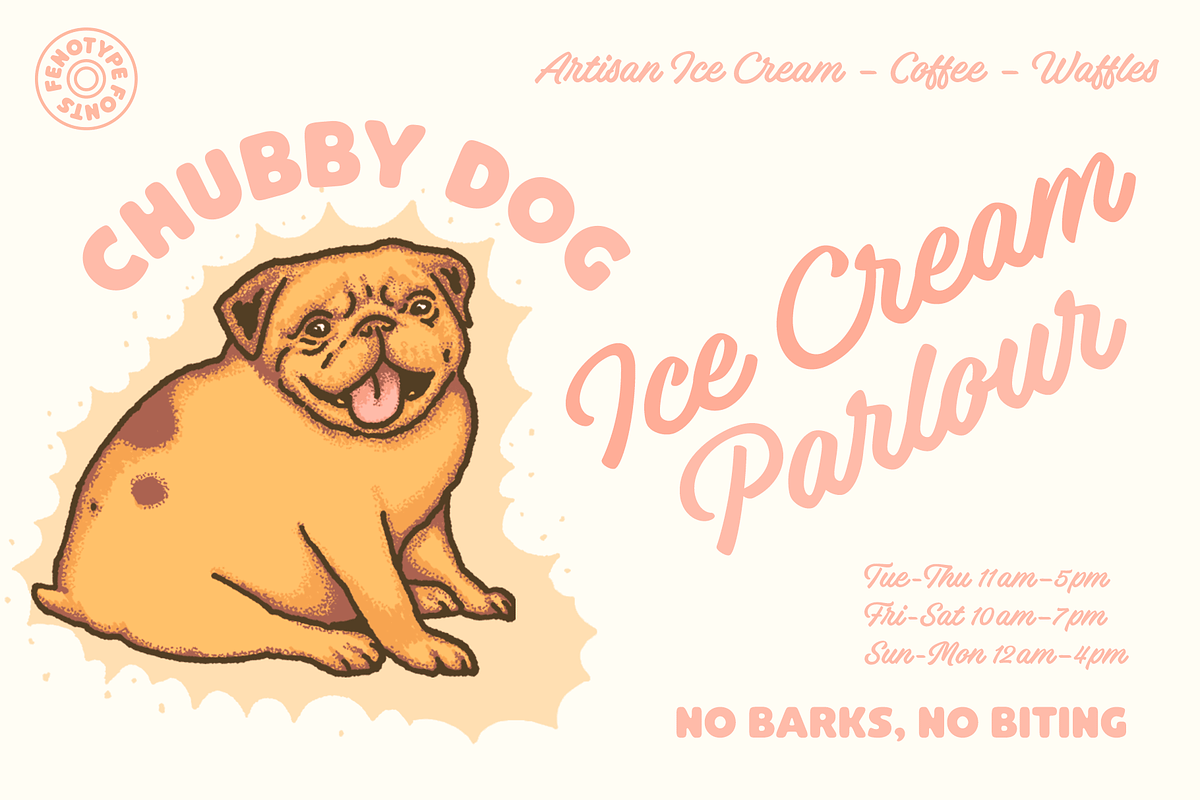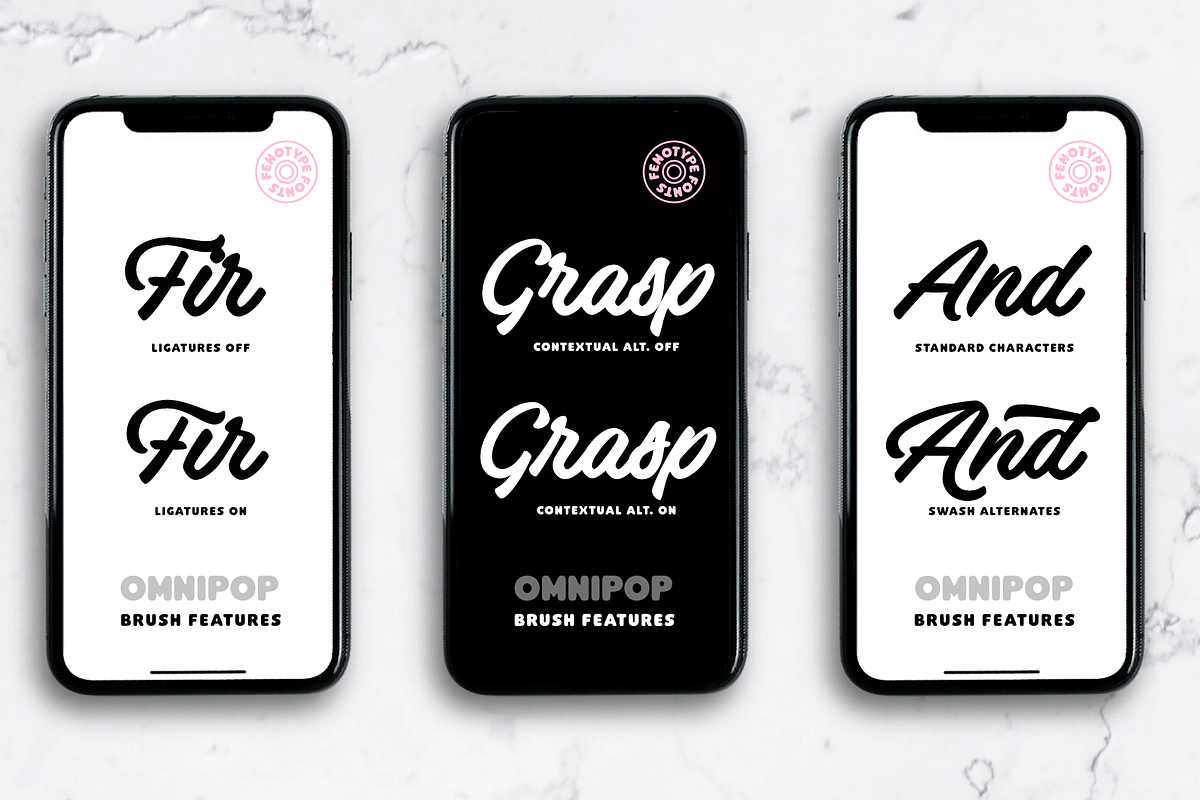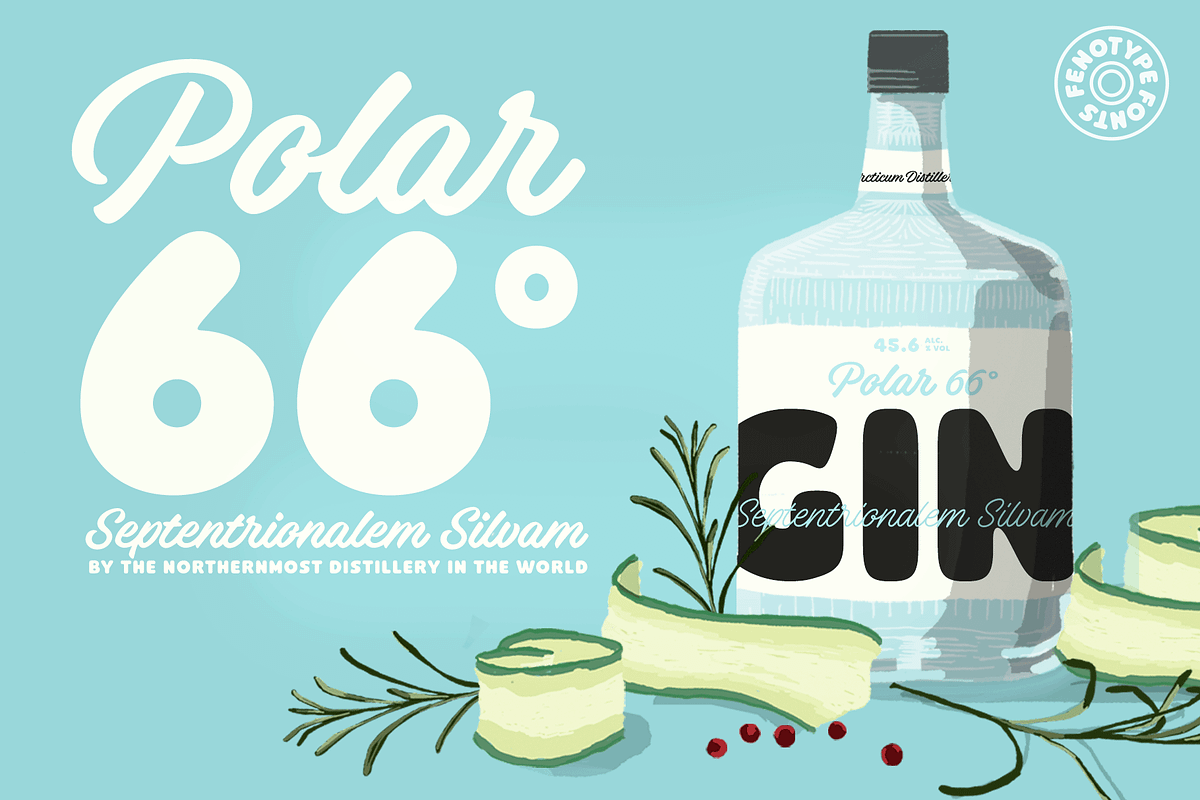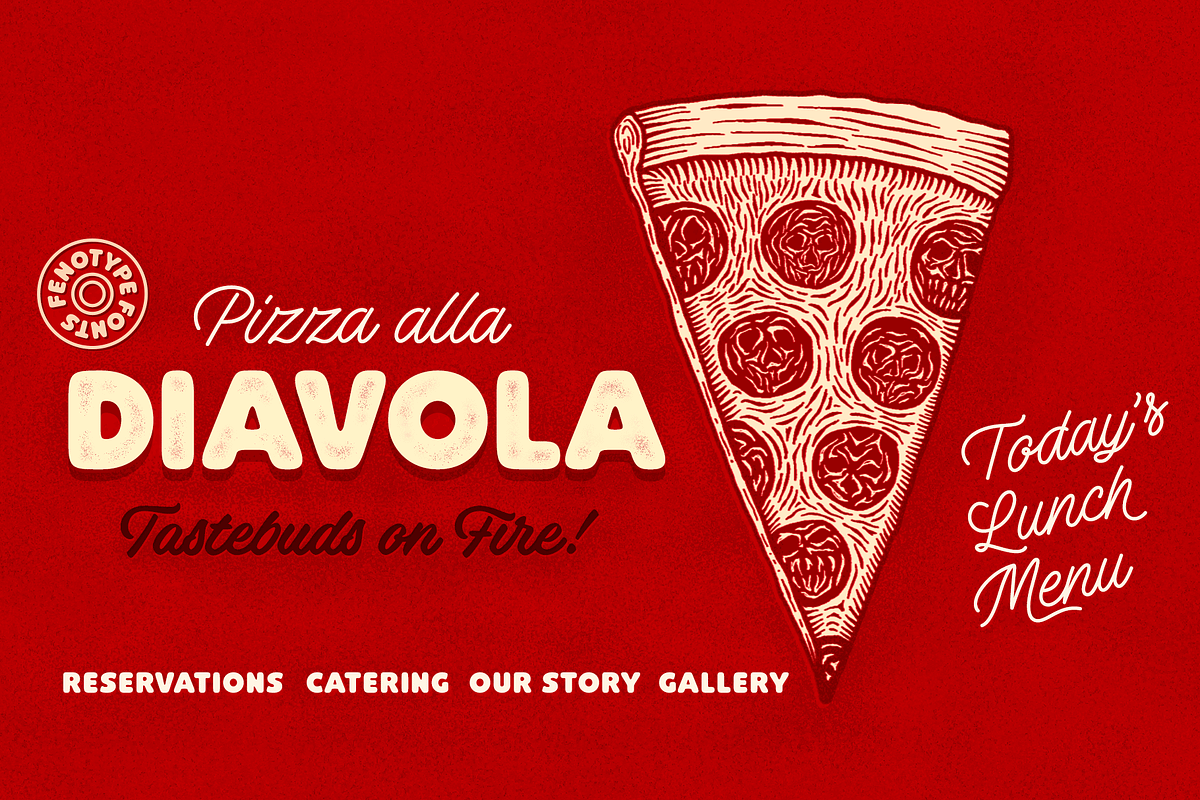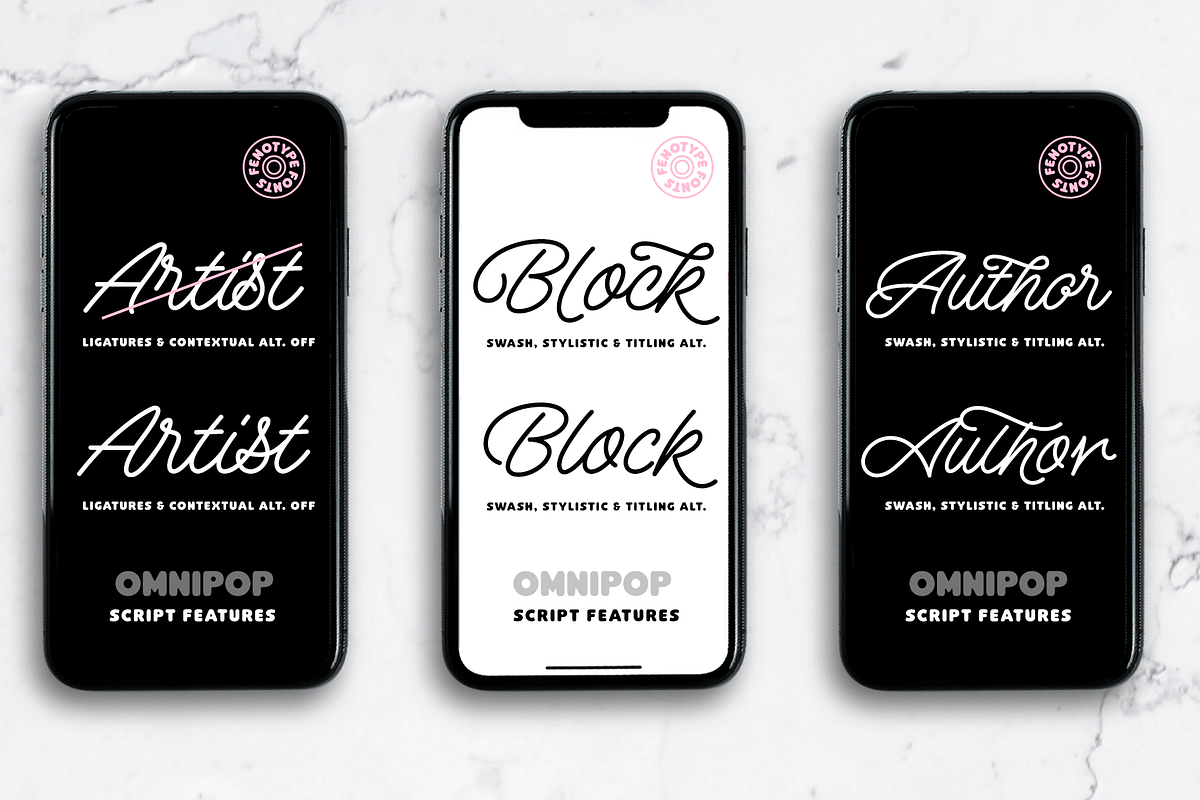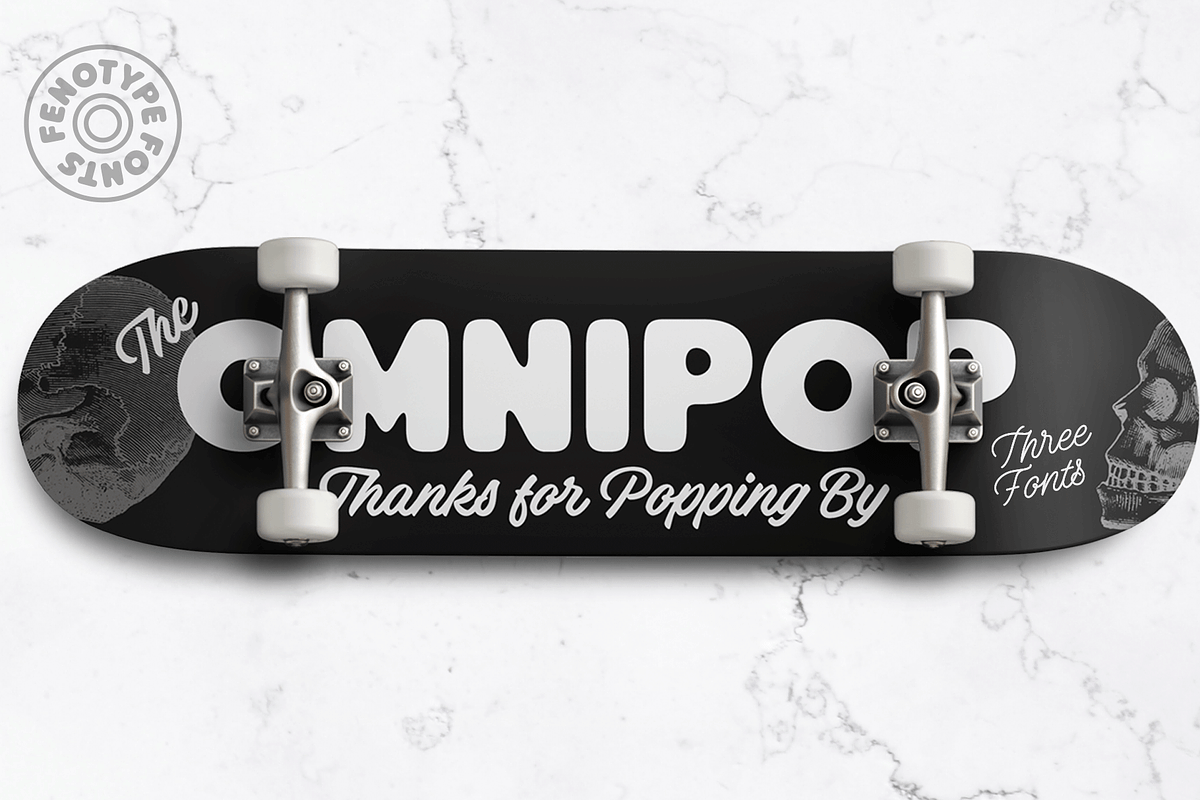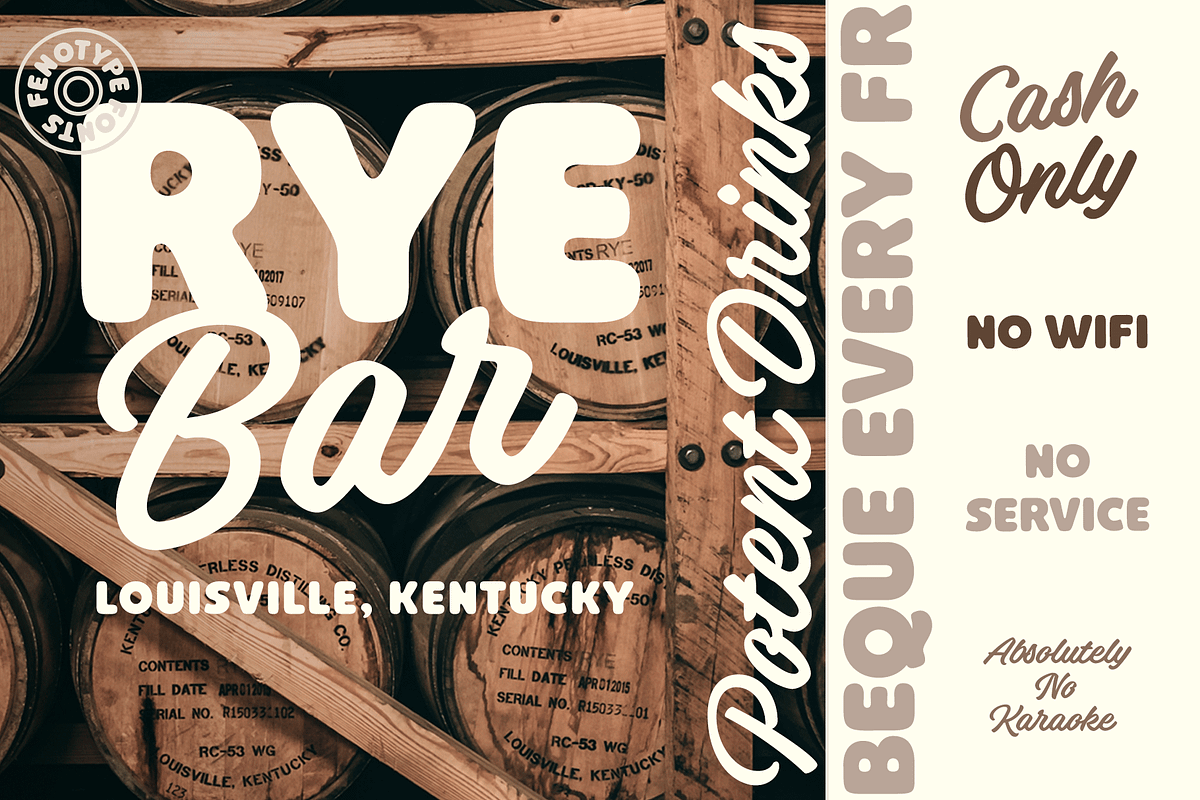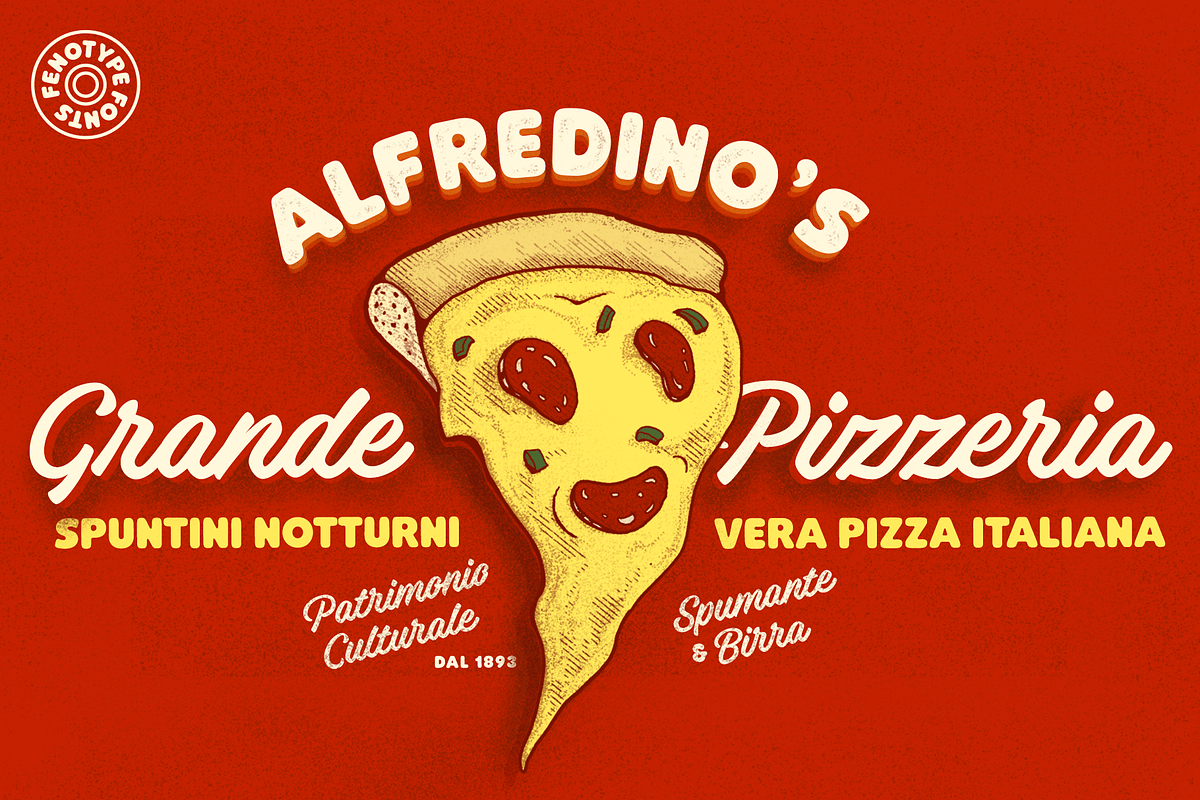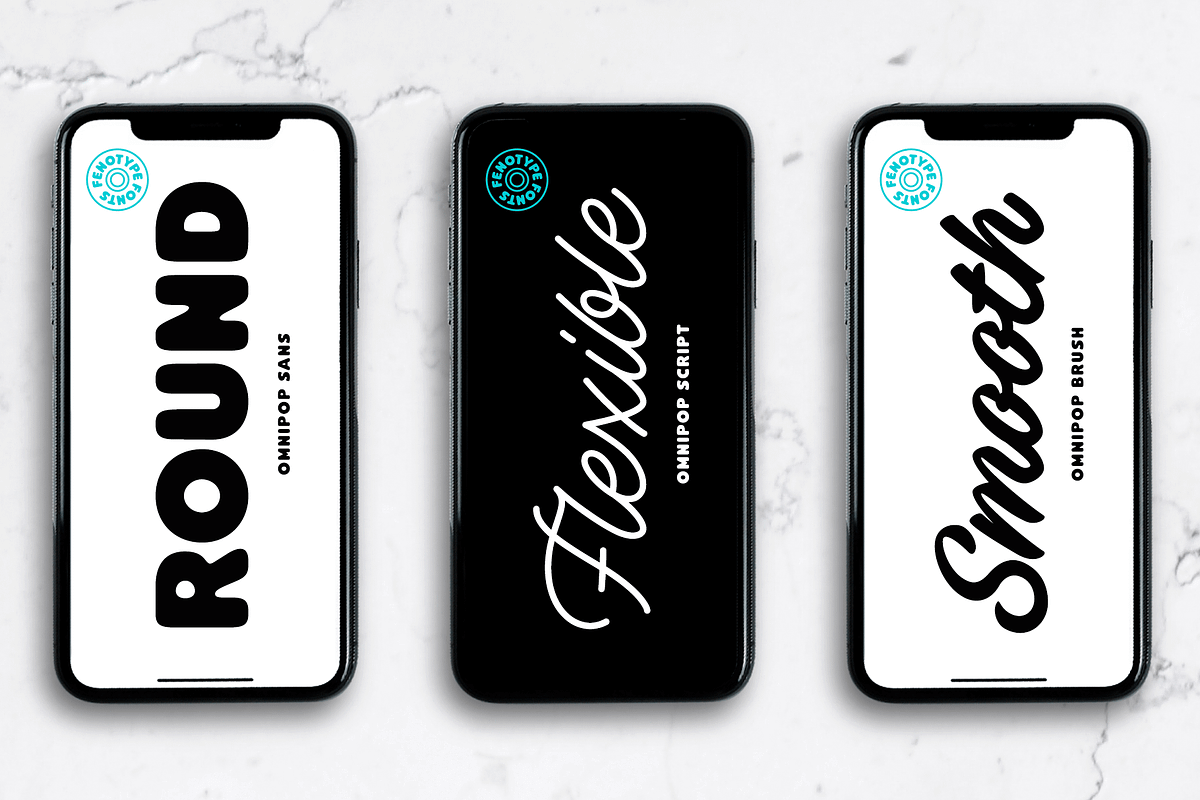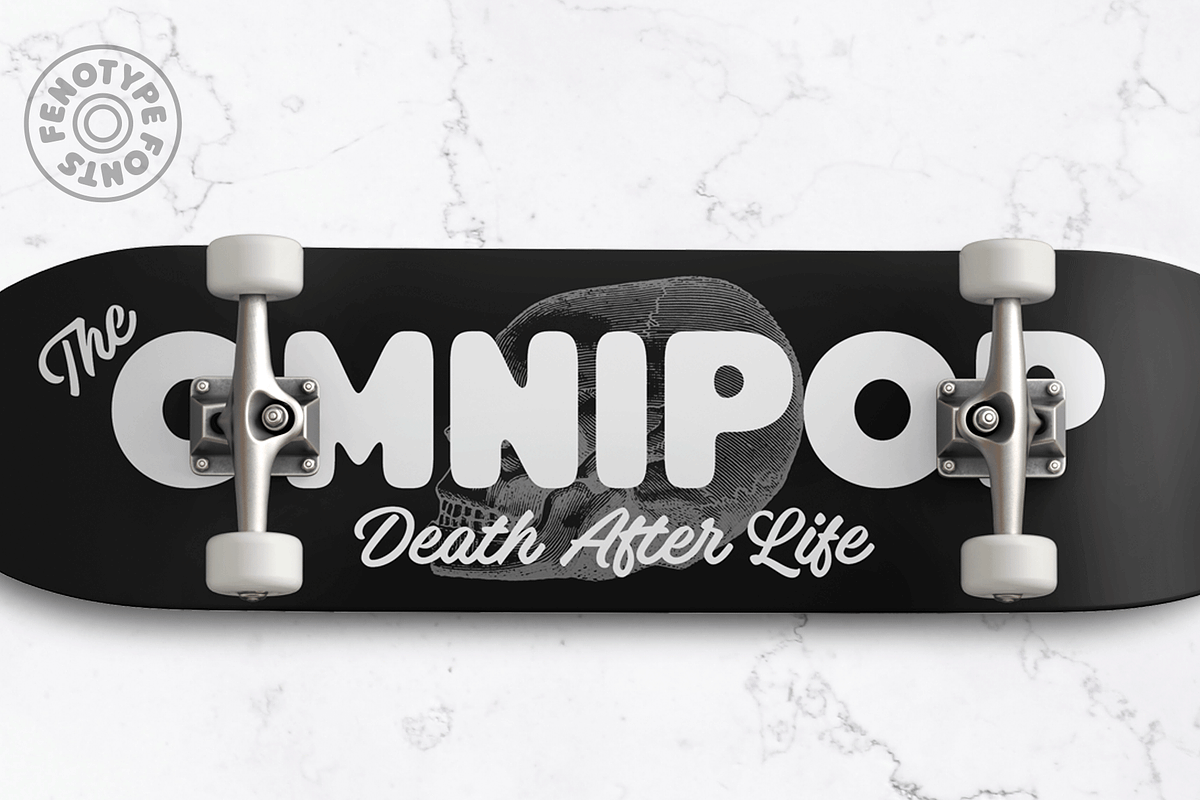
Omnipop is a potent display pack with three styles. All the fonts have firm yet clean and velvety character.
Omnipop Brush is a forward leaning brush script with a somewhat heavy complexion. It has a large x-height and it makes nice smooth and even texts. Omnipop Brush is equipped with Standard Ligatures and Contextual Alternates that are automatically on as they should be kept. In addition it has Swash, Stylistic and Titling Alternates for extra show-off.
Omnipop Script is a monoline connected script simulating a smooth felt-tip pen. Script is equipped with Standard Ligatures and Contextual Alternates to keep the connections smooth. In addition Omnipop Script has Swash, Stylistic and Titling Alternates and even more extra characters can be found in the glyphs window.
Omnipop Sans is a sturdy rounded all caps sans with a sort of geometric vibe to it. Anything you type with Omnipop Sans will look cheery and approachable.
Omnipop fonts rock on their own but they also play great together in any order.2